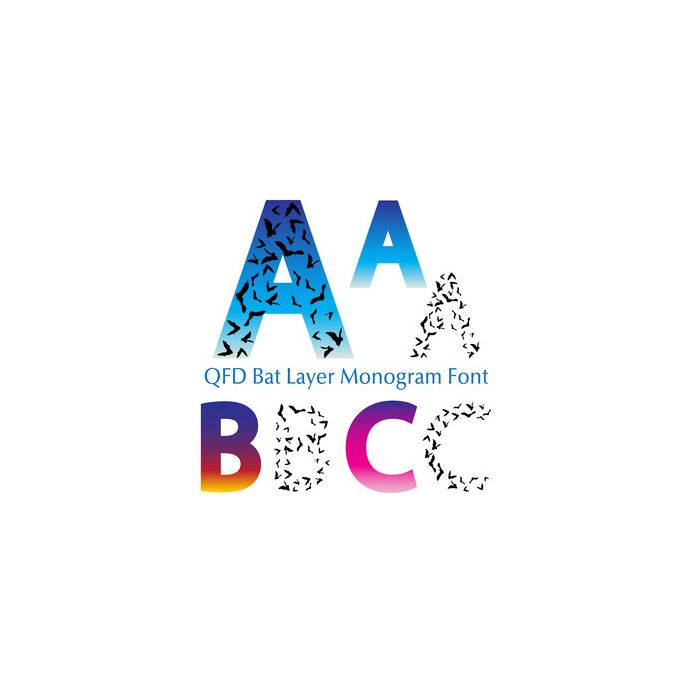
This font has two layers. The lower case is all bats, and the upper case is the base. Type your letter in upper case and the same letter in the lower case, then cut and paste (or drag) the same lower case letter on top. Use them in any colour combination you wish! Combine this fun font with the other QFD Monogram fonts! See our detailed monograms tutorial by clicking the Instructions button.